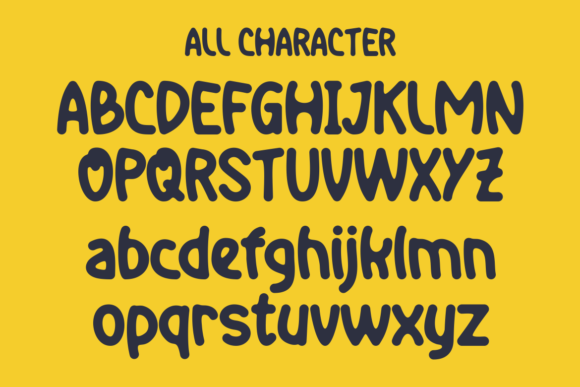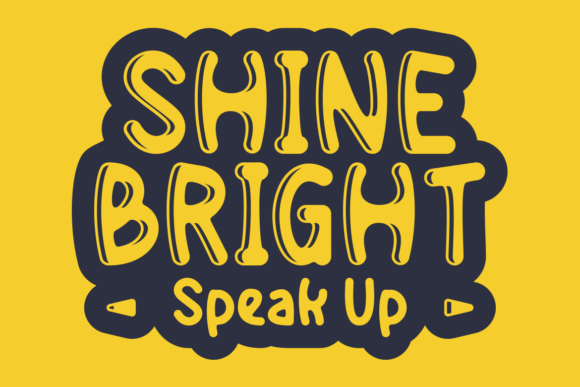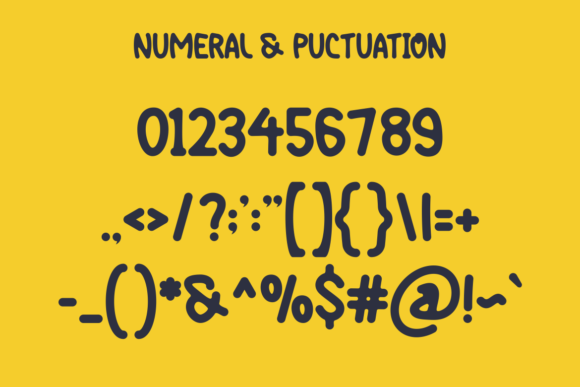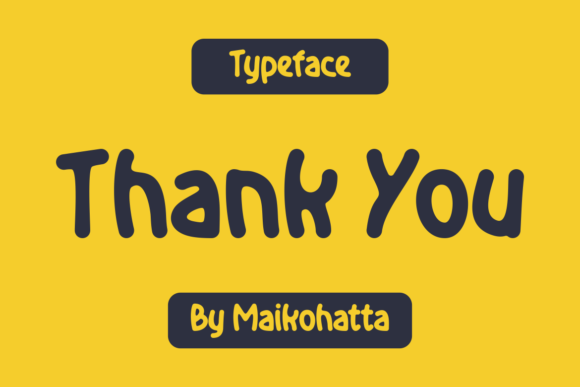
Unlock Your Creativity with Begialo Font
Have you ever stared at a blank canvas, searching for the perfect font to bring your design to life? That’s exactly where the Begialo Font comes in – a playful display font designed to add a touch of whimsy and fun to your creations.
Whether you’re crafting a birthday card, designing a children’s book, or creating a quirky poster, Begialo Font is the perfect companion for your artistic endeavors. With its wide range of applications, from greeting cards to presentations, this versatile font is sure to become a staple in any designer’s toolkit. Its unique style and character make it an excellent choice for those looking to add a bit of personality to their work.
Begialo Font Key Features
- Font Family: Begialo Font is a sans-serif font family, designed for modern and clean typography.
- Font Size: Begialo Font is available in 6 different weights, ranging from Thin (100) to Extra Bold (800), allowing for flexibility in design.
- Unique Characteristics: The font features a unique geometric shape and a subtle rounded edge, giving it a modern and friendly feel.
- Language Support: Begialo Font supports a wide range of languages, including Latin, Cyrillic, and Greek scripts, making it suitable for international use.
Begialo Font Review
I recently had the chance to work with the Begialo font, and I have to say it’s been a mixed bag for me.
- The font has a unique, modern aesthetic that can really make a design pop. I love the way the bold and italic styles add some extra flair to headings and titles.
- The Begialo font is highly legible, even at smaller font sizes. This makes it a great choice for body text and other content where readability is key.
- The font is highly customizable, with a wide range of weights and styles to choose from. This makes it easy to find the perfect look for your design.
- The Begialo font can feel a bit sterile or cold at times, which may not be the best fit for designs that need a warmer, more approachable tone.
- The font may not be the best choice for long blocks of text, as it can start to feel a bit fatiguing to read.
- The font is not optimized for very small font sizes, so you may need to adjust your design accordingly to ensure it looks its best.
Overall, I think the Begialo font is a solid choice for designers who want a modern, legible font that’s easy to customize. While it may not be the best fit for every design, it’s definitely worth considering for projects where you need a clean, professional look.
For the most out of Begialo Font, use it for creative projects that require a unique and eye-catching font. Common use cases include:
- Brochure design
- Social media graphics
- Wedding invitations
Remember to adjust the font size and style to ensure it is readable and visually appealing.
What is the character set for Begialo?
Begialo supports a wide range of languages, including Latin, Cyrillic, and Greek scripts. The font includes over 1000 glyphs, including standard letters, numbers, punctuation, and special characters. Additionally, Begialo supports Unicode characters, making it suitable for use in a variety of languages and applications.